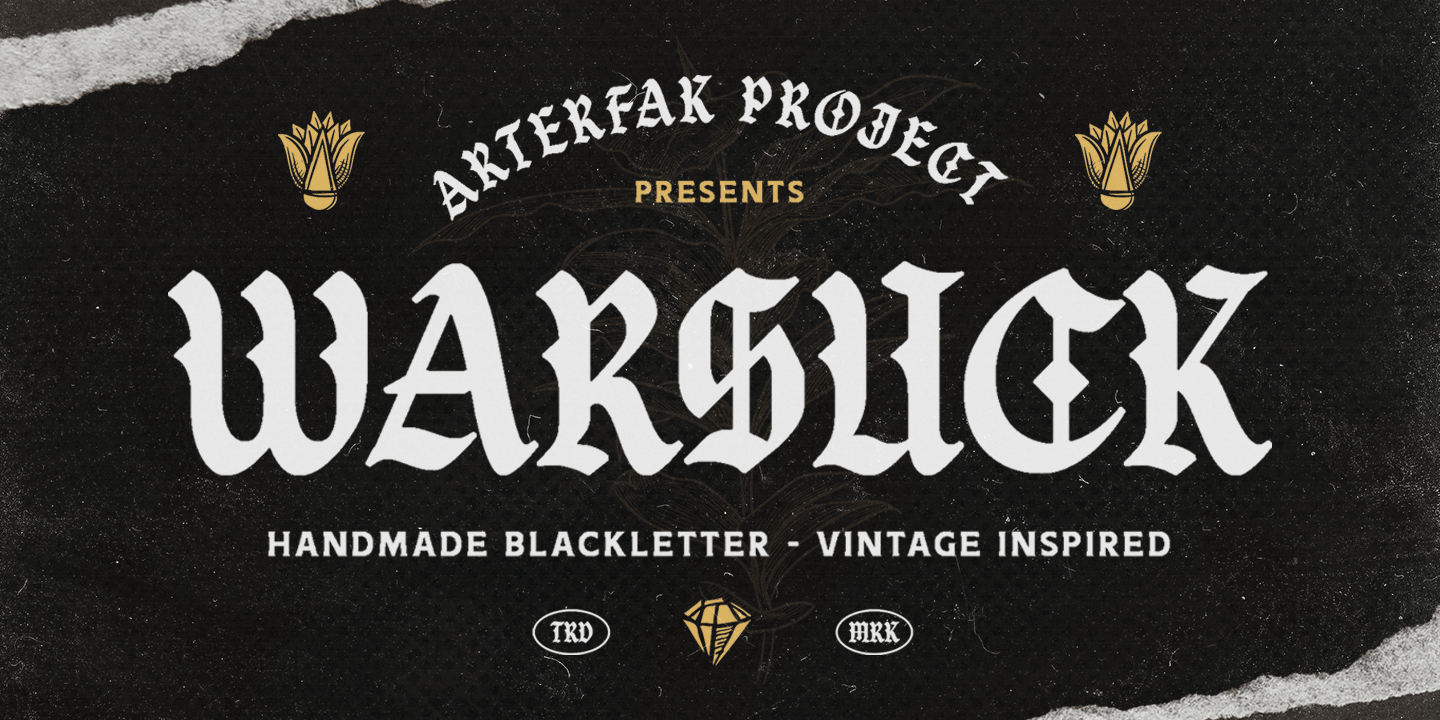
The Warsuck Font Free Download is ideal for t-shirts, posters, logos, and vintage-themed branding, offering a bold, gothic-inspired aesthetic.
This font is exciting because its hand-drawn, blackletter design, blending Bastarda, Rotunda, and Old English styles, delivers a gritty, underground vibe for striking displays.
The Warsuck family includes a single Regular style with alternate characters, providing creative flexibility for unique designs.
Unleash bold creativity with the Warsuck Font Free Download, a modern blackletter typeface designed by Ahmad Ramzi Fahruddin and published by Arterfak Project in 2021. Inspired by underground culture and gothic folios, Warsuck combines styles like Bastarda, Rotunda, and Old English for a unique, experimental look. With 103+ glyphs and extra alternates, it’s perfect for crafting eye-catching headlines, badges, or sportswear designs. Available in OTF, TTF, and WOFF formats, it ensures crisp rendering across print and digital platforms. As 2025 design trends favor bold, vintage typography, downloading Warsuck Font Free Download keeps your work edgy and impactful. Test it today at fontspace.com to explore its potential, and consider purchasing a commercial license at  for full use.